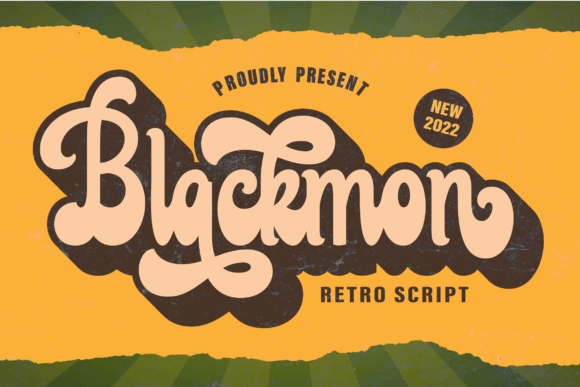
The Groovy World of Blackmon Font
I’ll never forget the time I was working on a project to create a retro-themed poster for a 80s music festival. I had all the graphics and images ready, but I was stuck on finding the perfect font to give it that authentic vibe. That’s when I stumbled upon Blackmon Font, a bold script font that instantly transported me back to the fabulous world of the 60s-80s.
With its extruded version and PUA encoding, Blackmon Font made it easy for me to add a retro effect to my design. I was able to access all the glyphs and swashes with ease, and the result was a stunning poster that perfectly captured the essence of the era. In this article, I’ll share my love for Blackmon Font, its features, and how to make the most of it in your designs.
An Honest Review of Blackmon Font
What I Love About Blackmon Font ✨
- ✨ Retro charm: Blackmon Font has a unique, bold script style that screams retro. It’s perfect for designs that need a vintage touch.
- ✅ Extruded version: The extruded version of the font adds a 3D effect, making it easy to create a retro effect.
- ✅ PUA encoded: With PUA encoding, accessing glyphs and swashes is a breeze.
- ✅ Versatile: Blackmon Font is perfect for various design projects, including logos, invitations, labels, magazines, books, greeting/wedding cards, packaging, fashion, make-up, stationery, novels, labels, or other advertising purposes.
While Blackmon Font is an amazing font, there are a few things to keep in mind:
- ⚠️ Legibility: At very small sizes, Blackmon Font can be a bit tricky to read. Make sure to test it at different sizes to ensure it’s legible for your project.
- 🤔 Pairing with other fonts: As with any bold font, pairing Blackmon Font with other fonts can be challenging. Experiment with different combinations to find the perfect match.
The Backstory of Blackmon Font
Blackmon Font was designed with the goal of capturing the essence of the 60s-80s. The designer, inspired by the era’s iconic typography, created a bold script font that’s both nostalgic and versatile. With its extruded version and PUA encoding, Blackmon Font has become a go-to choice for designers looking to add a retro touch to their projects.
A: PUA (Private Use Area) encoding is a way of encoding fonts that allows for easy access to glyphs and swashes. It’s a convenient feature that makes designing with Blackmon Font a breeze.
Q: Is Blackmon Font suitable for body text?
A: While Blackmon Font is a beautiful font, it’s not ideal for body text. Its bold style and extruded version make it better suited for headlines and titles.